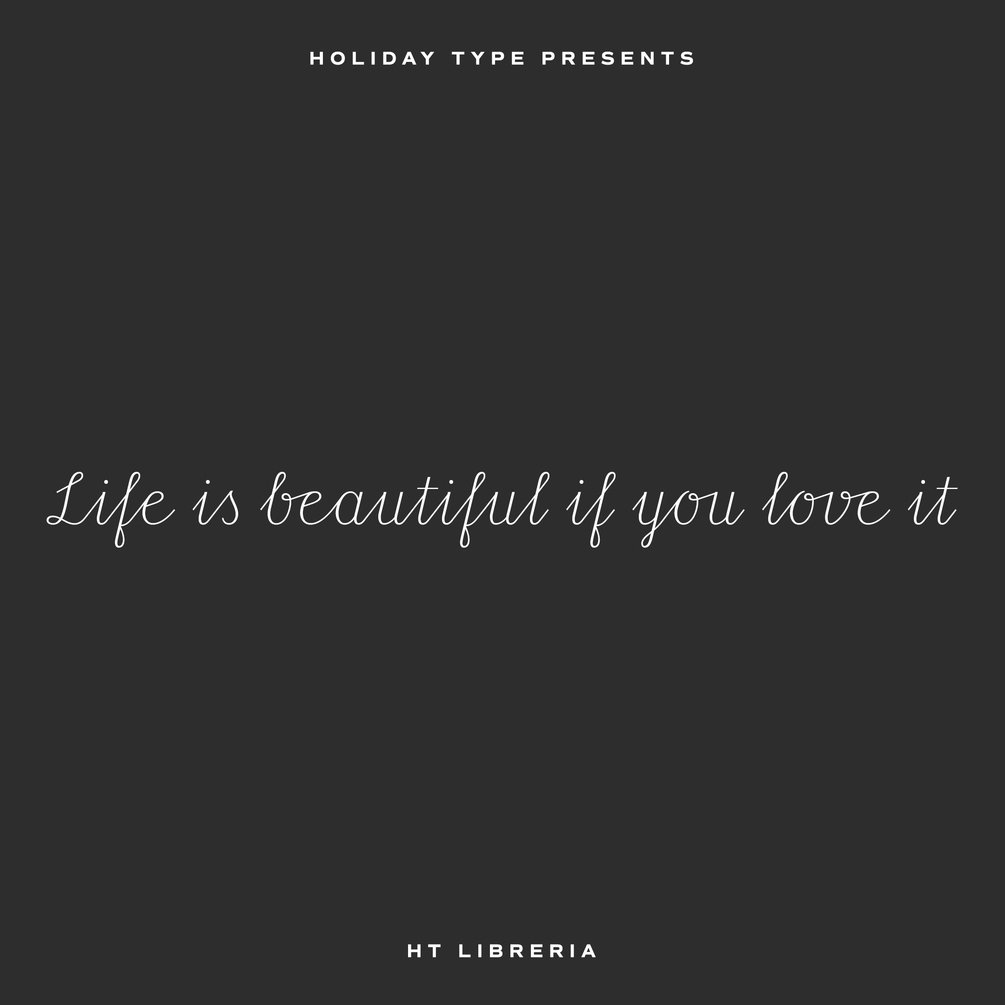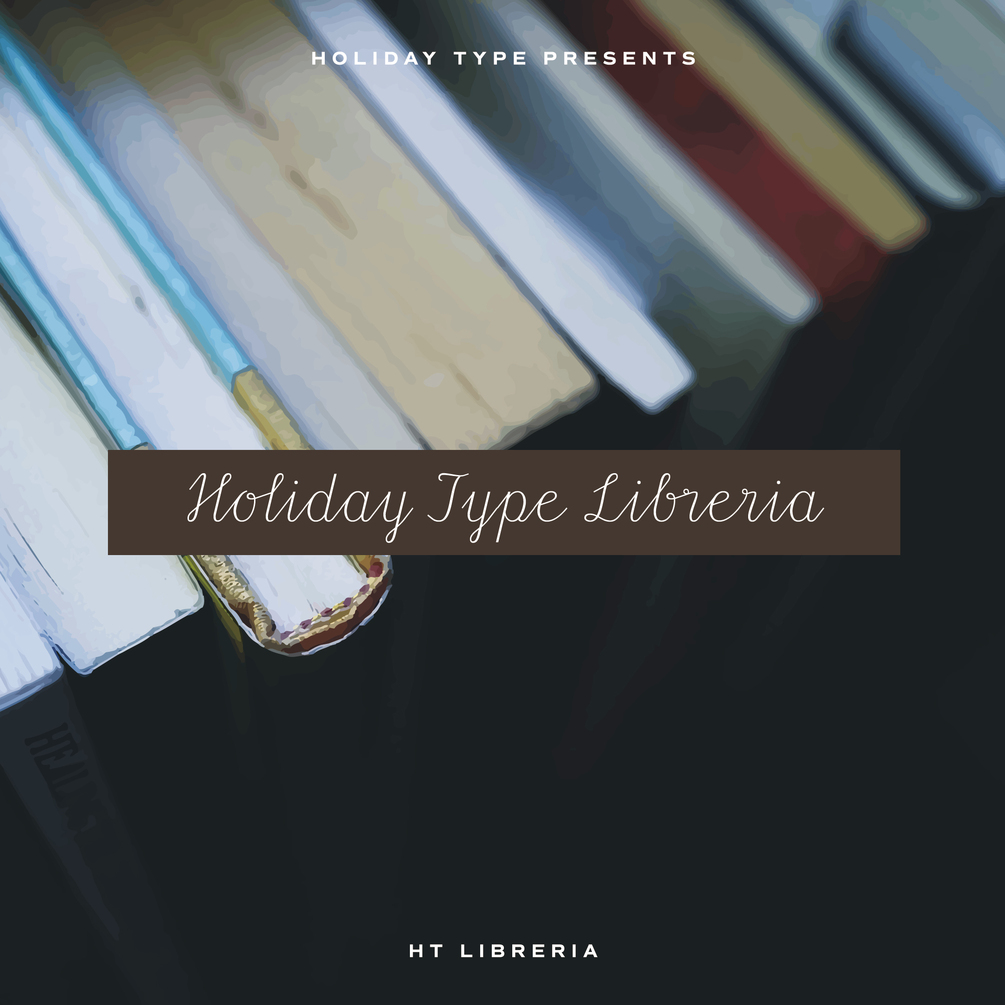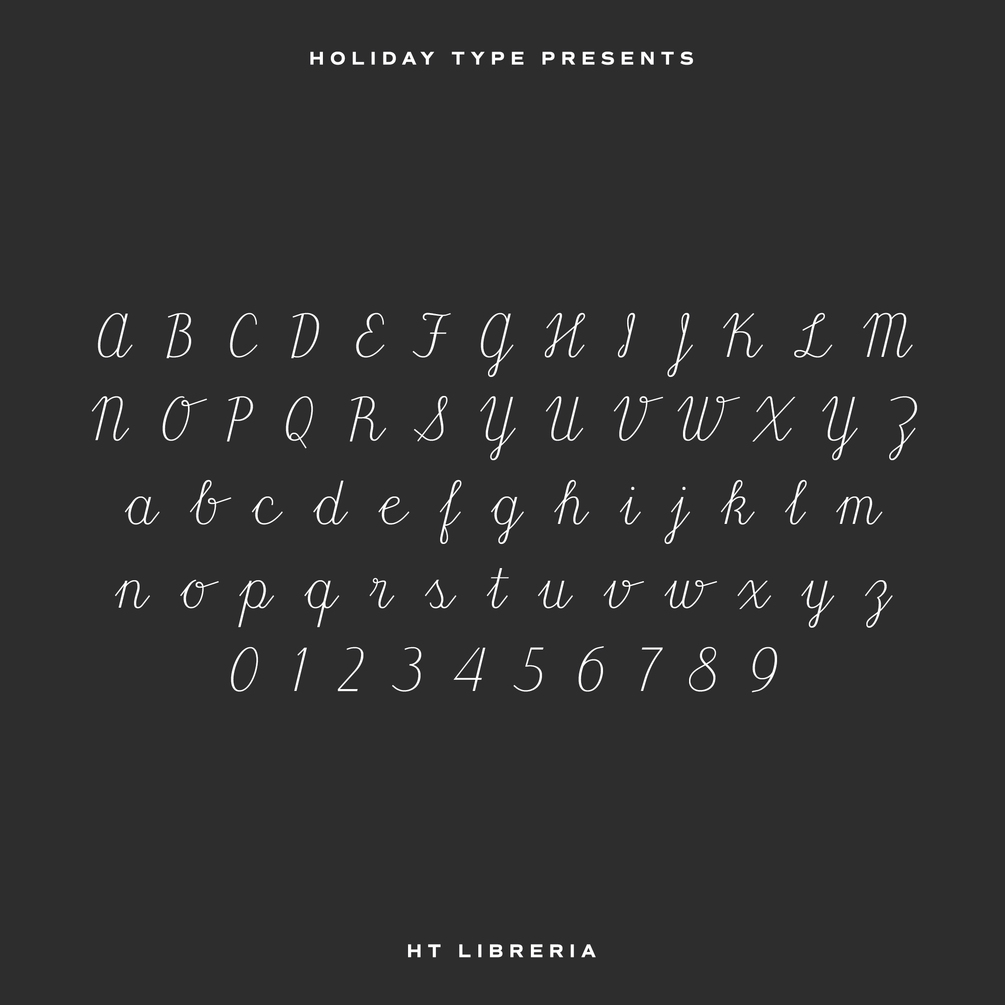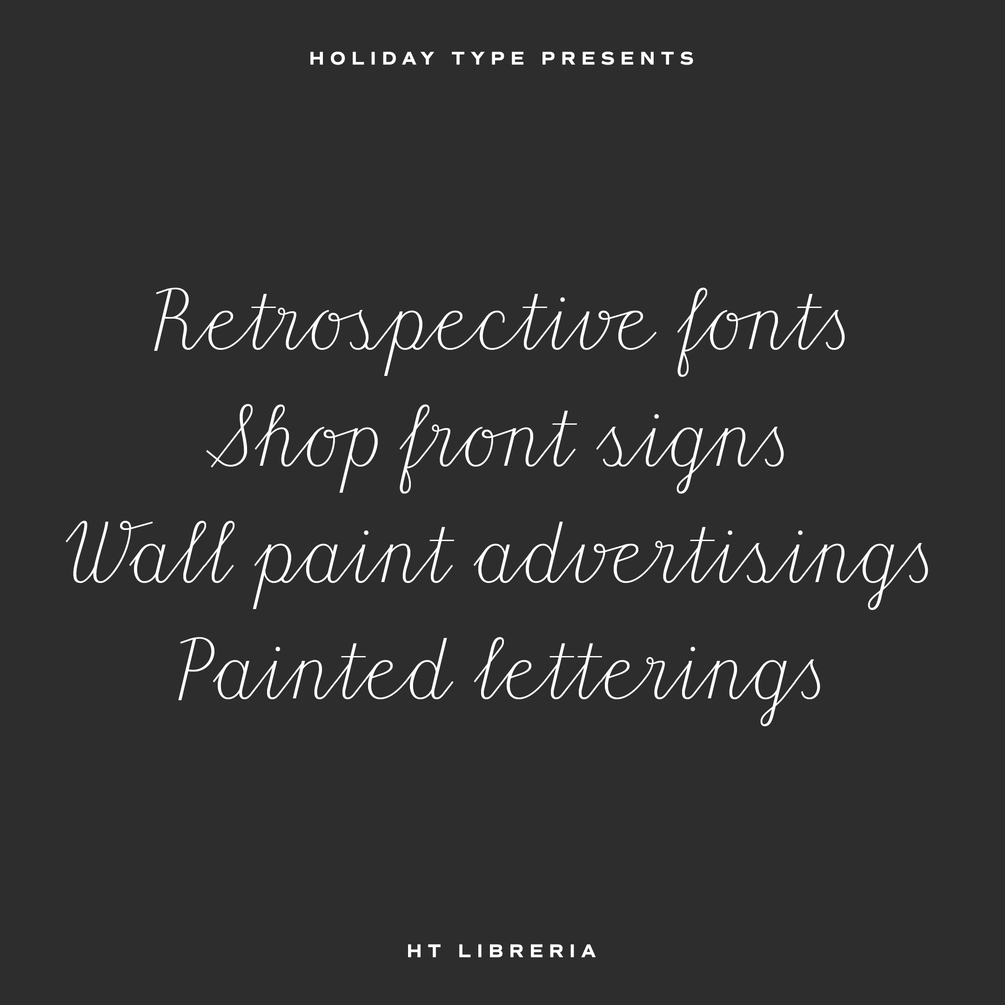
HT Libreria
Retro script based on shopfront lettering, wallpaint advertisements in Italy around 1950s. This font consists of thin lines, we get very delicate impression.The straight lines are regularly arranged, at the same time, this font has very beautiful curved lines. So its overall atmosphere is intelligent and sophisticated.